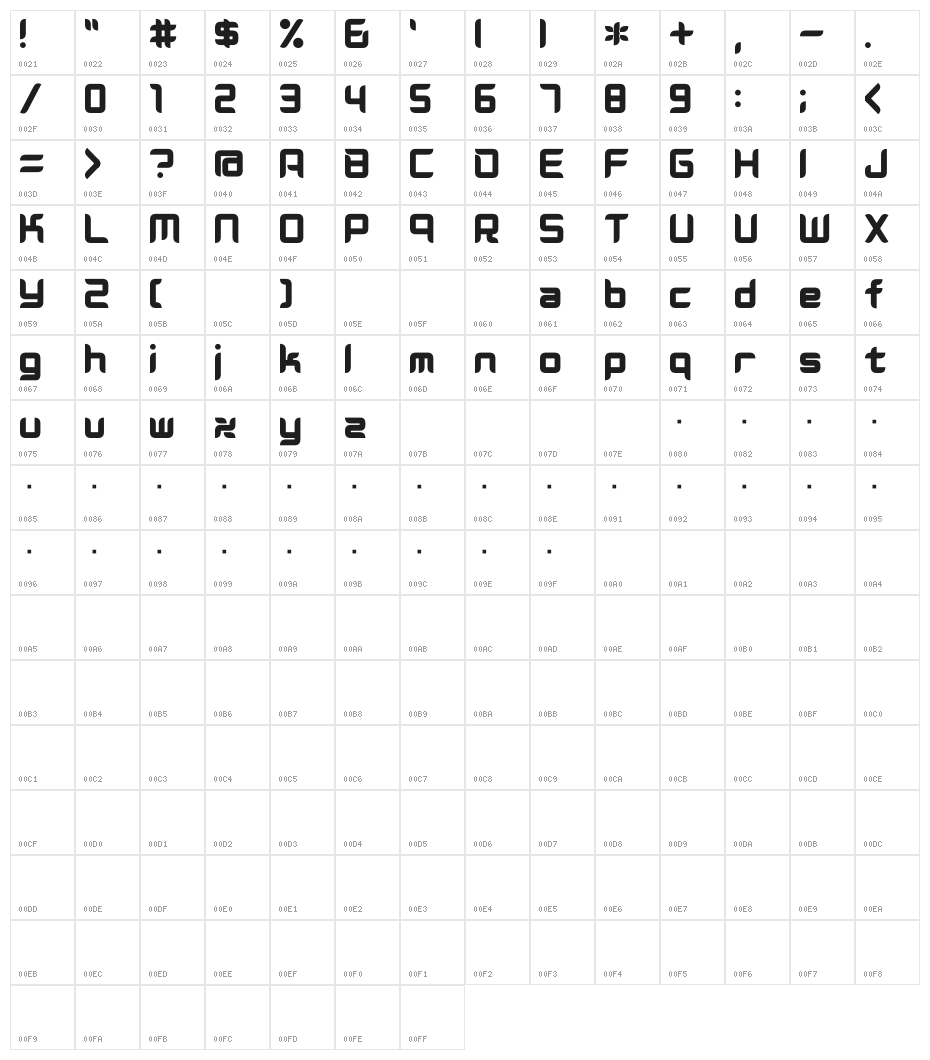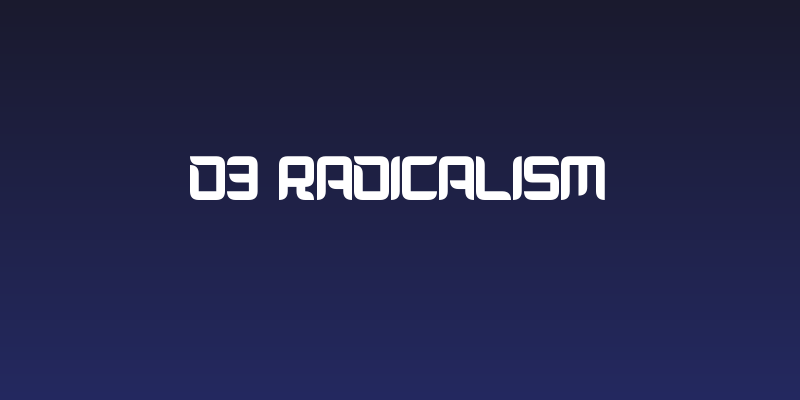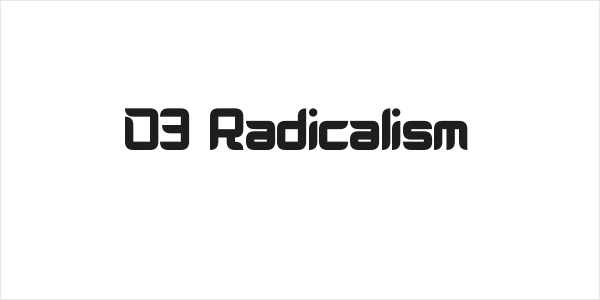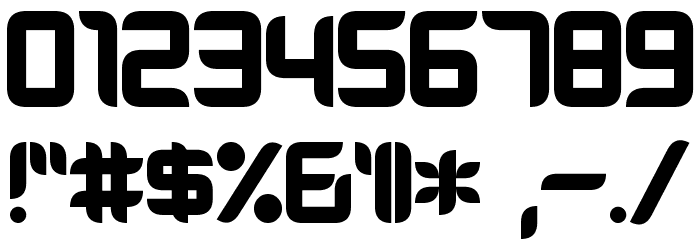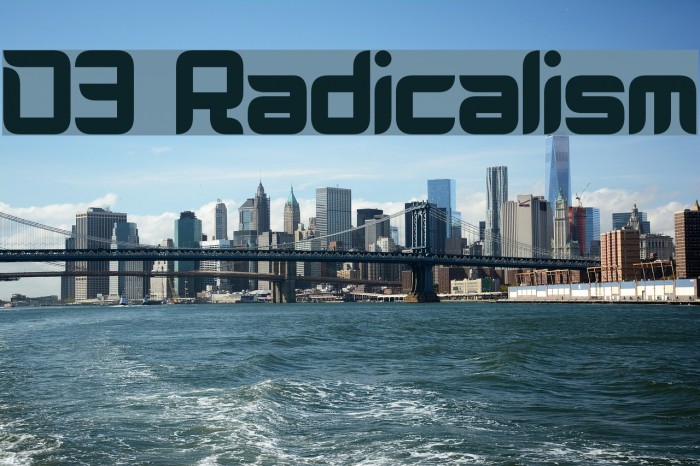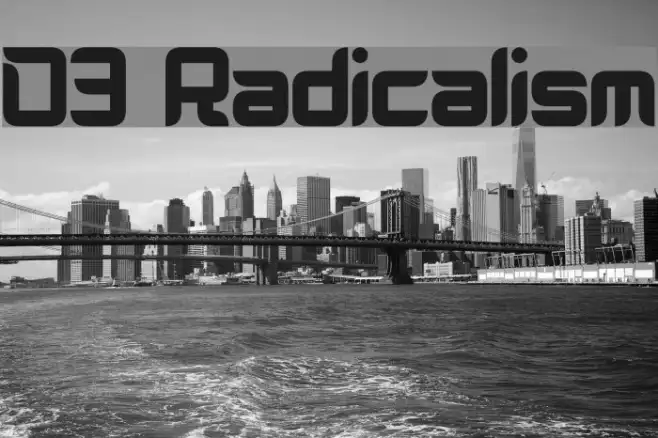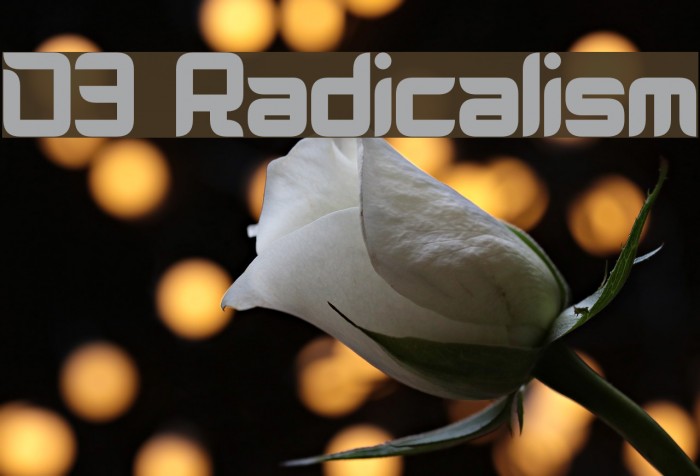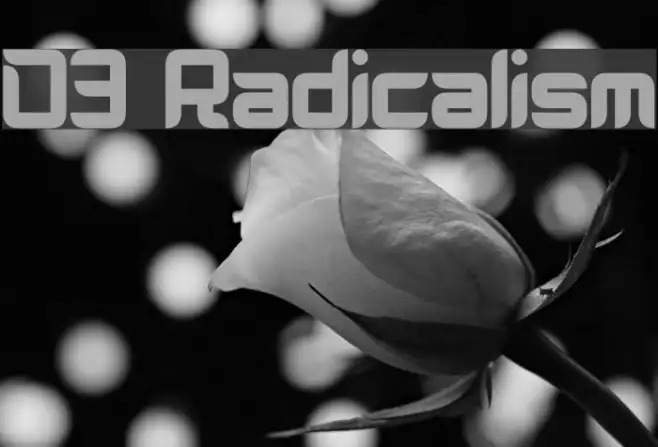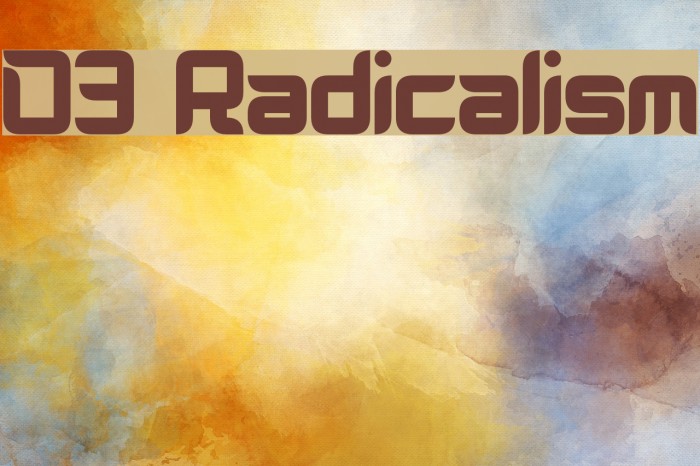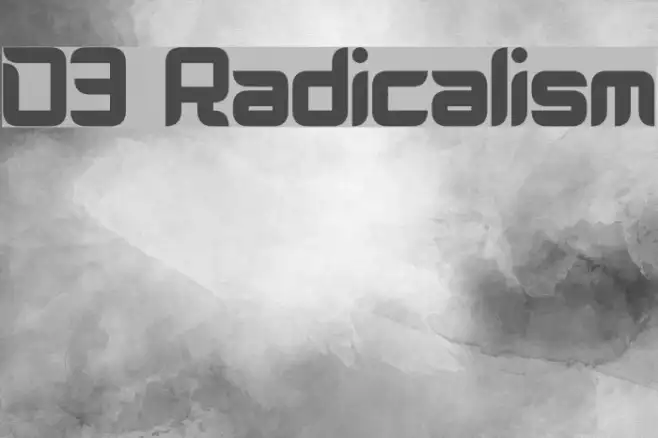
D3 Radicalism Font
D3 Radicalism Description
This font features a bold, futuristic style with rounded edges and a geometric structure. The characters are uniformly thick, creating a strong visual impact. The design is modern and somewhat experimental, with a unique approach to letterforms that gives it a distinct personality. The uppercase and lowercase letters maintain a consistent style, while the numerals and special characters complement the overall aesthetic. This font is well-suited for projects that require a bold statement and a contemporary feel.
D3-RADICALISM UPPERCASE
D3-RADICALISM LOWERCASE
D3-RADICALISM OTHER CHARS
| Proposed Projects | Ideal for tech branding, sci-fi posters, modern logos, and digital interfaces. |